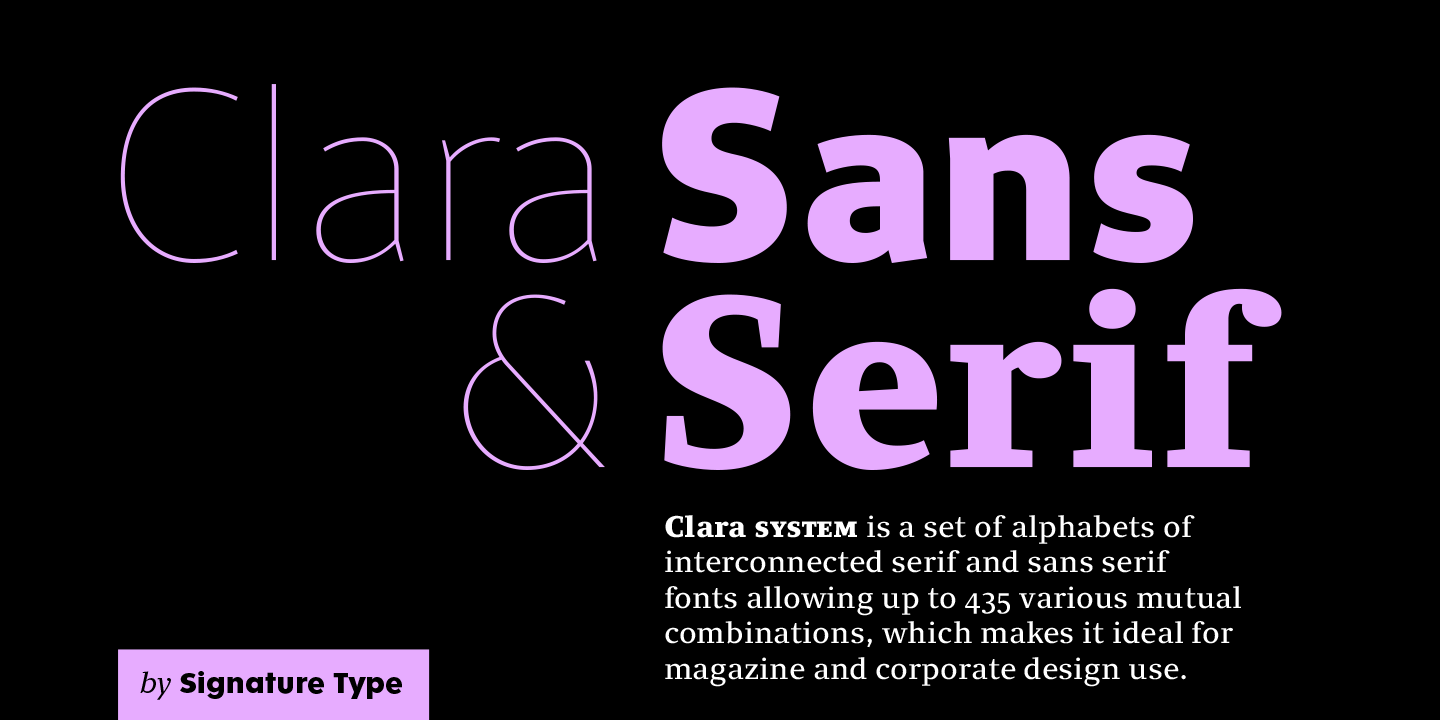
The Clara Sans Font is a beautifully clean and remarkably versatile sans-serif typeface, characterized by its open, inviting forms and a modern, humanist aesthetic that prioritizes both elegance and supreme legibility. Imagine its refined characters providing a sophisticated foundation for contemporary corporate branding, adding a crisp touch to digital interfaces and mobile applications, or forming the backbone of elegant corporate websites and annual reports. It's an excellent choice for clear, authoritative signage systems, minimalist editorial layouts, and any digital or print content where precision, efficiency, and a forward-thinking vision are paramount. Clara Sans Font excels in delivering a pristine, uncluttered, and visually appealing experience, ensuring your message is conveyed with undeniable precision and a refined modernity, making it a stellar choice for diverse communication needs.
What makes Clara Sans Font so exciting is its remarkable ability to achieve a harmonious blend of modern functionality with a genuine sense of understated charm. It avoids the coldness of some geometric sans-serifs while maintaining a clean, contemporary appearance. This versatility allows it to seamlessly adapt to a wide array of tones, from informative and authoritative to casual and engaging. Its outstanding legibility, even at small sizes and in demanding environments, is a key reason for its widespread appeal. It’s more than just a typeface; it’s a reliable workhorse that consistently delivers clarity, efficiency, and a timeless modern aesthetic that truly supports the content it carries. Designers value its extensive family, which provides precise typographic control for creating impeccably organized and visually appealing layouts. For designers seeking clarity and elegance, the Clara Sans Font Free Download is an invaluable resource.
The Clara Sans Font family is typically comprehensive, offering a vast array of weights and styles designed for ultimate typographic flexibility. Beyond the core Clara Sans Regular, the family often includes a rich spectrum from ultra-thin weights like Clara Sans Hairline and Clara Sans Thin, through Clara Sans Light, Clara Sans Book, Clara Sans Medium, Clara Sans Bold, and up to heavy weights like Clara Sans Black and Clara Sans Ultra. Each of these weights usually comes with corresponding Clara Sans Italic versions. Furthermore, professional versions often include extended character sets, small caps, and various numeral styles (e.g., old-style figures, lining figures), providing immense flexibility for sophisticated typesetting and complex design systems. This extensive range of family members ensures that designers can create intricate and harmonious typographic systems, maintaining a consistent, powerful, and universally appealing aesthetic across all elements of a project.